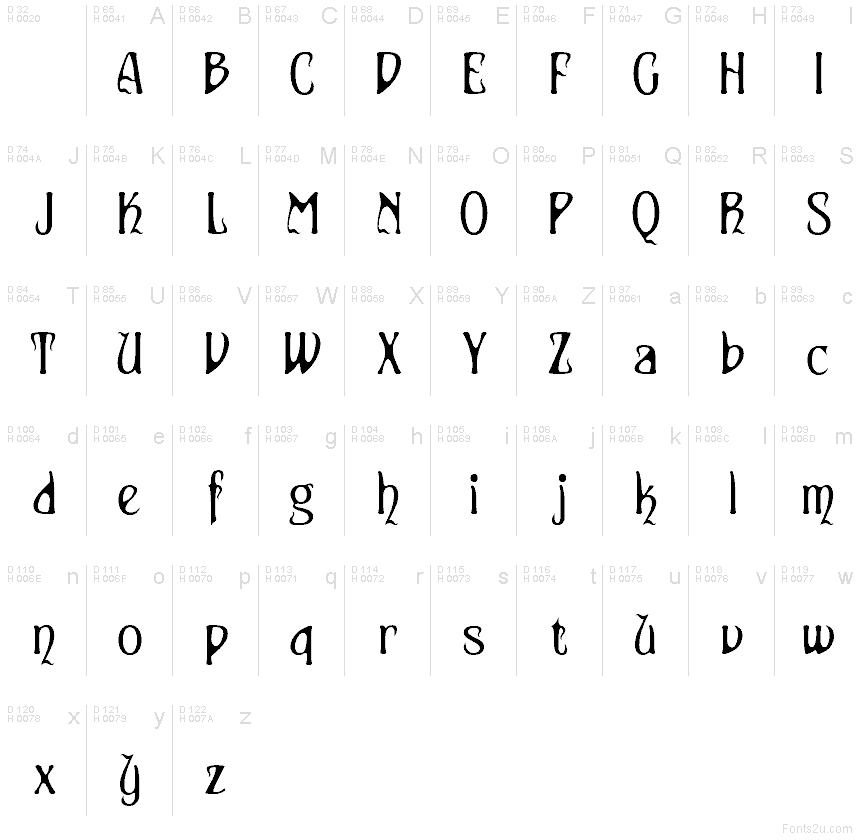
CSArcaneDrawn-Regular Demo
CS Arcane Drawn font by Craft Supply Co. is a condensed retro display font with decorative elements. Its dark, historical ambiance is influenced by ornate gothic aesthetics, contributing to the font’s mysterious and mystical mood.
This free font is perfect for futuristic books covers and posters, dark subject magazines, eerie movie flyers, ominous branding designs, gaming logos, packaging designs with mystery theme flavor and more.